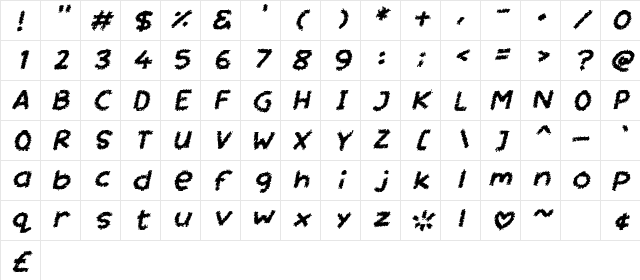
Miss Chalkboard is a composed and adaptable typeface that performs quietly and consistently across a wide range of design contexts. The slanted form adds forward momentum and visual energy.
Pro Tip: Use Miss Chalkboard for emphasis, pull quotes, and subheadings where its slanted energy can add rhythm to the layout.